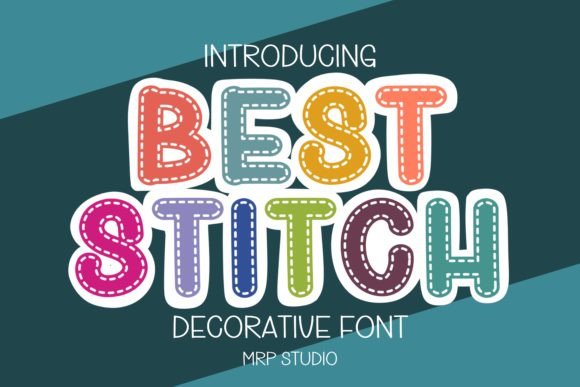
Introducing the Best Stitch Font, a decorative font style designed by MRP STUDIO. This font will add a playful and adorable touch to your projects, making them stand out and catch the attention of your audience.
Whether you are working on colorful child-related projects, planning a wedding, creating party decorations or invitations, designing posters, writing blogs, creating clothing designs, or crafting greeting cards, the Best Stitch Font is the perfect choice. With its friendly and fun design, it is sure to add a unique touch to your creations and make them unforgettable.
But the Best Stitch Font is not just for fun and playful projects. It can also add a touch of warmth and friendliness to your more serious projects, such as back-to-school materials or social media posts. This font will make your message more approachable and engaging, helping you connect with your audience on a deeper level.